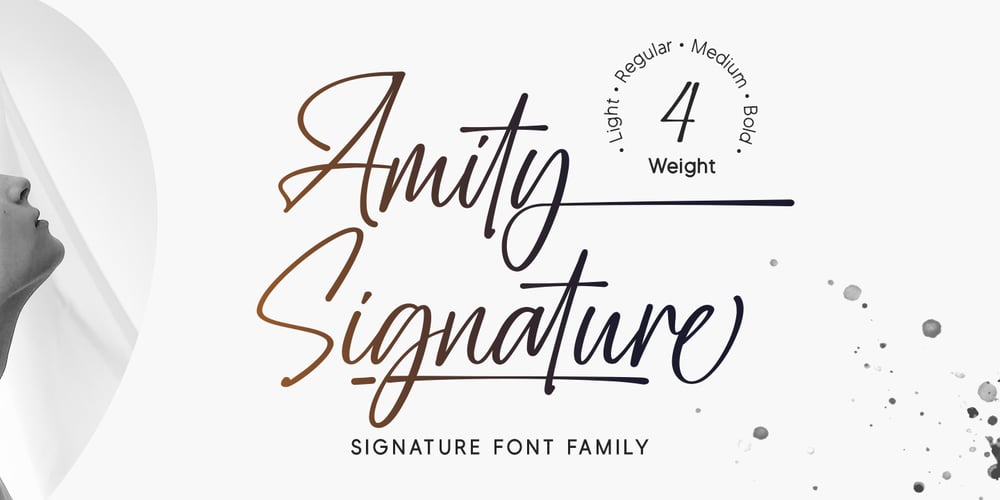
Amity Signature Font Family was designed by Dwi Ahidian and published by Lemonthe. Amity Signature contains 4 styles and family package options. Amity Signature is a stylish and versatile font family featuring four distinct weights: Light, Regular, Medium, and Bold. This collection offers an elegant impression and flexibility for all design needs, such as logos, branding, signatures, posters, labels, product packaging, invitation designs, and more.